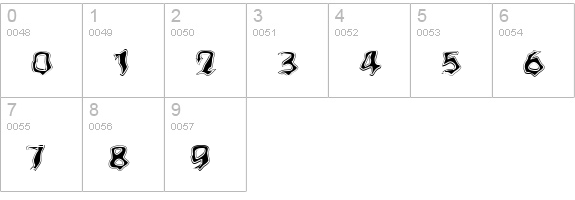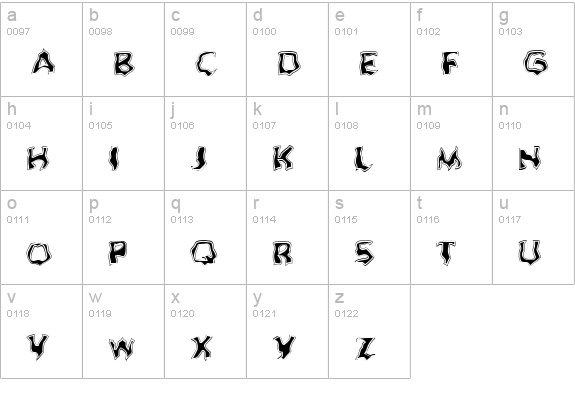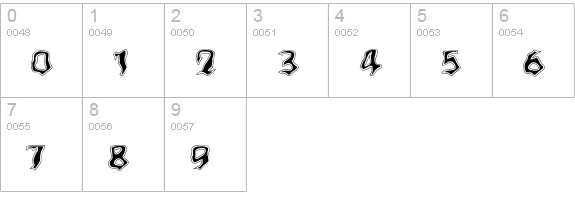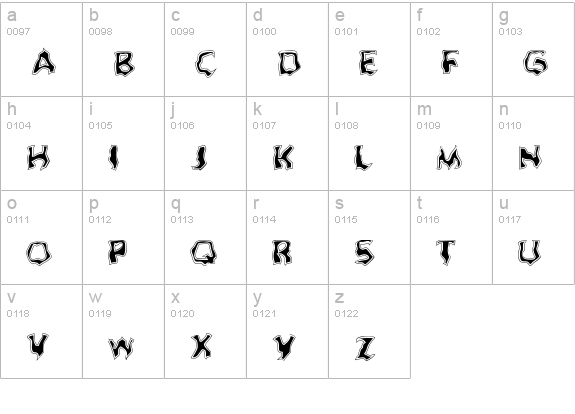
Ghoul Outline Fill font is a spooky and unique typeface perfect for Halloween-themed projects, horror movie posters, and other eerie designs. This font features intricate outlines with a filled center, giving it a haunting and mysterious look. The Ghoul Outline Fill font is free to download at FontsMarket.com, making it easily accessible for all your creepy creative needs. Add a touch of fright to your designs with this chilling font that is sure to grab attention and leave a lasting impression. Embrace the dark side with Ghoul Outline Fill font and bring your designs to life with a touch of supernatural flair.